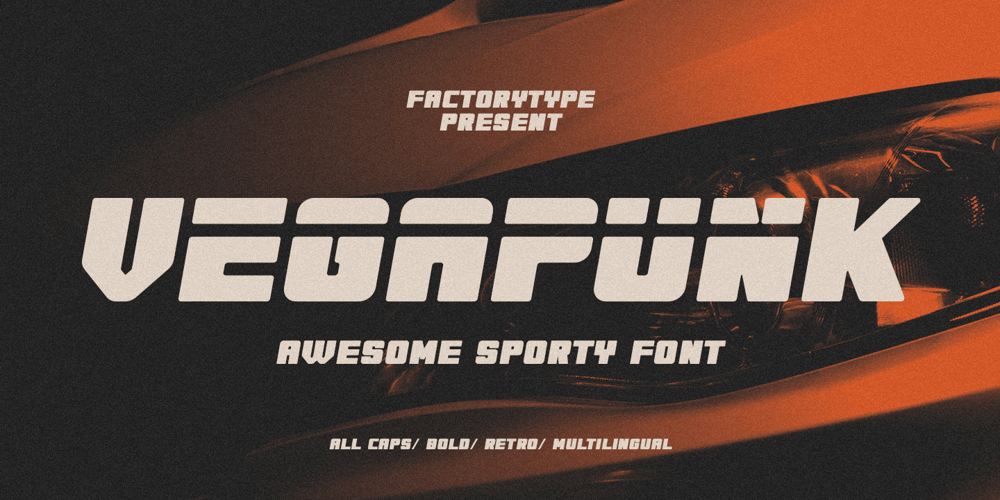
Vegapunk Font Family was designed by Wahyu Rahmawan and published by Factory738. Vegapunk contains 10 styles and family package options. The awesome sports font Vegapunk has unique cutouts, a dynamic slant, and gives the impression of power and speed. Ideal for fast-paced sports titles like auto racing, cycling, running sporting events, and automotive game logos and monograms, as well as other dynamic modern or vintage text. A wide variety of characters are offered by the available Ligatures and Italic styles, giving your project design an unique appearance. 5 Weights (Narrower, Narrow, Regular, Wide, Wider) 2 Styles (Regular and Italic) Basic Latin A-Z and a-z Numerals & Punctuation Stylistic Ligatures and Alternate glyps Multilingual Support for ä ö ü Ä Ö Ü … Free updates and feature additions Thanks for looking, and I hope you enjoy it.